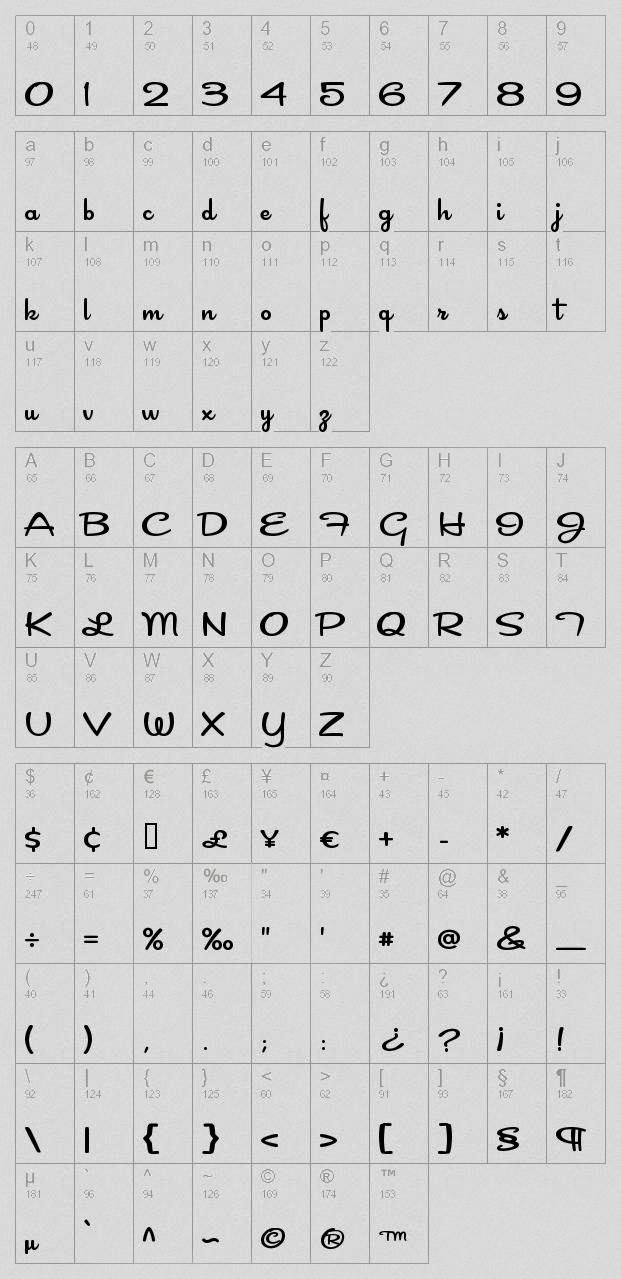
Cocktail Shaker Font Free Download . Experience the cocktail shaker regular font on windows, mac, and linux with our instant preview feature. Cocktail shaker font free download. This font is for personal use only! A script typeface with 1 style, available from adobe fonts for sync and. Download 186,286 free fonts at ufonts.com. Discover a vast collection of free cocktail fonts. Explore cocktail shaker designed by stuart sandler at adobe fonts. Soda shake € by khurasan. Add a splash of fun and elegance to your designs with these stylish and unique typography options. See how cocktail shaker regular looks. Uncategorized 97 downloads download cocktail bolditalic. A great choice for highlighting your design elements.
Experience the cocktail shaker regular font on windows, mac, and linux with our instant preview feature. Uncategorized 97 downloads download cocktail bolditalic. Download 186,286 free fonts at ufonts.com. Discover a vast collection of free cocktail fonts. This font is for personal use only! Add a splash of fun and elegance to your designs with these stylish and unique typography options. See how cocktail shaker regular looks. Soda shake € by khurasan. A great choice for highlighting your design elements. Explore cocktail shaker designed by stuart sandler at adobe fonts.
Cocktail Shaker Font Free Download A script typeface with 1 style, available from adobe fonts for sync and. A great choice for highlighting your design elements. Experience the cocktail shaker regular font on windows, mac, and linux with our instant preview feature. A script typeface with 1 style, available from adobe fonts for sync and. Download 186,286 free fonts at ufonts.com. See how cocktail shaker regular looks. Soda shake € by khurasan. Discover a vast collection of free cocktail fonts. Add a splash of fun and elegance to your designs with these stylish and unique typography options. Explore cocktail shaker designed by stuart sandler at adobe fonts. Cocktail shaker font free download. Uncategorized 97 downloads download cocktail bolditalic. This font is for personal use only!
Cocktail Script Font by Font Diner Font Bros Hand lettering fonts Cocktail Shaker Font Free Download Explore cocktail shaker designed by stuart sandler at adobe fonts. Download 186,286 free fonts at ufonts.com. Uncategorized 97 downloads download cocktail bolditalic. A script typeface with 1 style, available from adobe fonts for sync and. Discover a vast collection of free cocktail fonts. Cocktail shaker font free download. Add a splash of fun and elegance to your designs with these. Cocktail Shaker Font Free Download.
Cocktail Shaker Font Free Download Soda shake € by khurasan. Uncategorized 97 downloads download cocktail bolditalic. See how cocktail shaker regular looks. Experience the cocktail shaker regular font on windows, mac, and linux with our instant preview feature. Discover a vast collection of free cocktail fonts. This font is for personal use only! A great choice for highlighting your design elements. Download 186,286 free fonts. Cocktail Shaker Font Free Download.
Cocktail Bubbly font by Font Diner FontRiver Cocktail Shaker Font Free Download Add a splash of fun and elegance to your designs with these stylish and unique typography options. A great choice for highlighting your design elements. This font is for personal use only! See how cocktail shaker regular looks. Discover a vast collection of free cocktail fonts. Soda shake € by khurasan. A script typeface with 1 style, available from adobe. Cocktail Shaker Font Free Download.
Cocktail Shaker Font Free Download A great choice for highlighting your design elements. Discover a vast collection of free cocktail fonts. Cocktail shaker font free download. Add a splash of fun and elegance to your designs with these stylish and unique typography options. Soda shake € by khurasan. Download 186,286 free fonts at ufonts.com. A script typeface with 1 style, available from adobe fonts for. Cocktail Shaker Font Free Download.
COCKTAIL SHAKER FONT DOWNLOAD Cocktail Shaker Font Free Download A script typeface with 1 style, available from adobe fonts for sync and. Download 186,286 free fonts at ufonts.com. Uncategorized 97 downloads download cocktail bolditalic. Discover a vast collection of free cocktail fonts. This font is for personal use only! Soda shake € by khurasan. Add a splash of fun and elegance to your designs with these stylish and unique. Cocktail Shaker Font Free Download.
Cocktail Shaker Font Free Download This font is for personal use only! Explore cocktail shaker designed by stuart sandler at adobe fonts. Uncategorized 97 downloads download cocktail bolditalic. Discover a vast collection of free cocktail fonts. Experience the cocktail shaker regular font on windows, mac, and linux with our instant preview feature. Cocktail shaker font free download. See how cocktail shaker regular looks. Soda shake. Cocktail Shaker Font Free Download.
Cocktail shaker clipart. Free download transparent .PNG Creazilla Cocktail Shaker Font Free Download Discover a vast collection of free cocktail fonts. A great choice for highlighting your design elements. Add a splash of fun and elegance to your designs with these stylish and unique typography options. A script typeface with 1 style, available from adobe fonts for sync and. Soda shake € by khurasan. Cocktail shaker font free download. Uncategorized 97 downloads download. Cocktail Shaker Font Free Download.
Cocktail Shaker Font Free Download Explore cocktail shaker designed by stuart sandler at adobe fonts. Cocktail shaker font free download. Add a splash of fun and elegance to your designs with these stylish and unique typography options. A script typeface with 1 style, available from adobe fonts for sync and. Uncategorized 97 downloads download cocktail bolditalic. This font is for personal use only! Download 186,286. Cocktail Shaker Font Free Download.